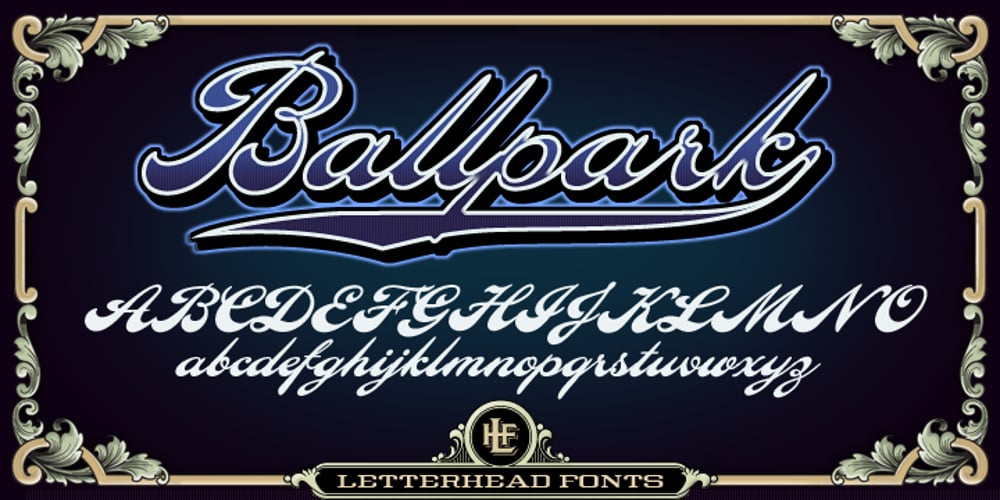
LHF Ballpark Script
LHF Ballpark Script font
LHF Ballpark Script Font Family was designed by Thomas Kennedy and published by Letterhead Fonts. LHF Ballpark Script contains 3 styles and family package options. This fun to use old-fashioned script comes with two fonts: LHF Ballpark Script and LHF Ballpark Swashes. LHF Ballpark Swashes includes over 58 different swashes in place of characters, designed to attach to the ends of the Ballpark Script letters.